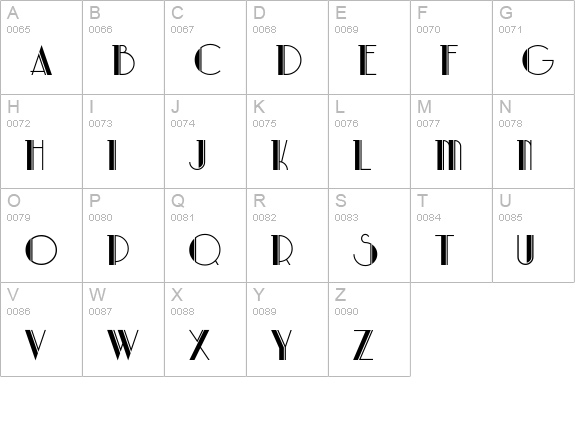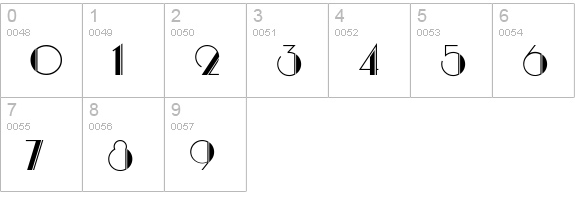
ParkLane Font Details
ParkLane font is an exquisite and elegant typeface that effortlessly captures the essence of sophistication and style. With its sleek and graceful letterforms, this font is the perfect choice for projects that require a touch of class. Designed with meticulous attention to detail, ParkLane font boasts a timeless appeal that transcends trends and fads. Its clean lines and balanced proportions create a harmonious visual experience, making it highly versatile for a wide range of applications. Whether used in branding, editorial design, or signage, ParkLane font makes a lasting impression with its refined and polished appearance. Its legibility and readability ensure that your message is effortlessly communicated to your audience. One of the most remarkable aspects of ParkLane font is that it is freely available to download at FontsMarket.com. This means that you can effortlessly access this exceptional typeface and incorporate it into your design projects without any constraints. With its availability at FontsMarket.com, ParkLane font grants you the freedom to explore your creativity and elevate your designs to new heights. So, if you are looking for a font that exudes elegance, sophistication, and is freely accessible, look no further than ParkLane font. Its timeless beauty and unmatched versatility make it a valuable asset in any designer's toolkit. Download it now at FontsMarket.com and unlock a world of design possibilities.